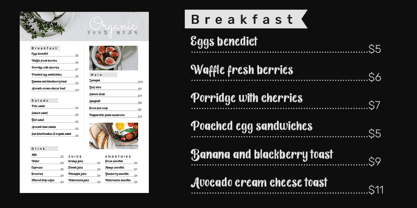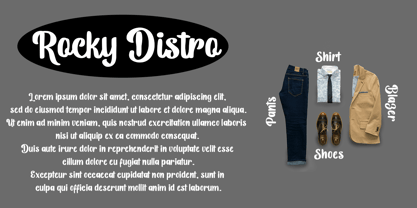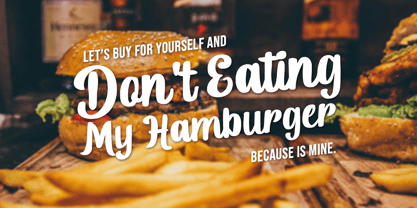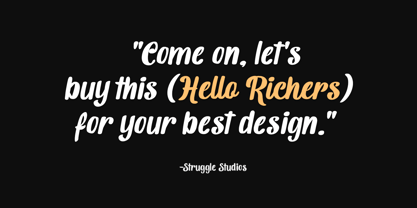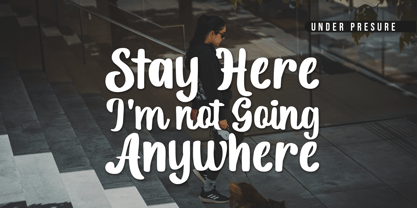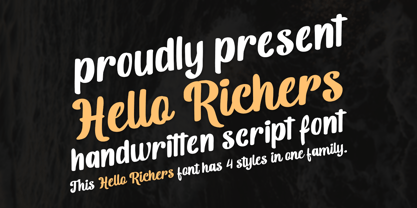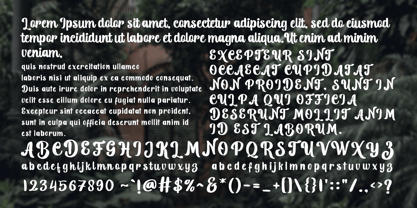
Hello Richers
by Struggle Studio
The Hello Richers Font Family was designed by Andri Kurniawan and published by Struggle Studio. Hello Richers contains 4 styles and family package options. More about this family
Hello Richers – Handwritten Script & Display Font
Hello Richers is a versatile handwritten font family that blends a casual charm with bold display impact. Designed to be both eye-catching and easy to read, it’s perfect for branding, packaging, posters, social media graphics, and more.
This font comes with 4 distinctive styles in one family:
Script – A smooth and friendly handwritten style.
Script Slant – A dynamic, italic version for expressive designs.
Display – A bold and strong style ideal for headlines or titles.
Display Slant – A stylish slanted version of the Display style for a modern touch.
With its mix of script and display styles, Hello Richers offers creative flexibility to bring warmth, energy, and personality to your projects.
Designers: Andri Kurniawan
Foundry: Struggle Studio